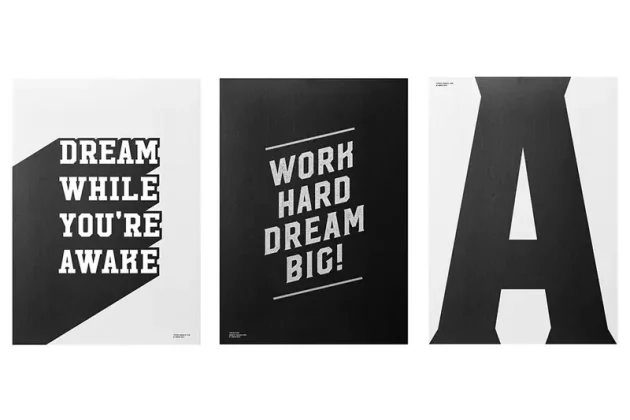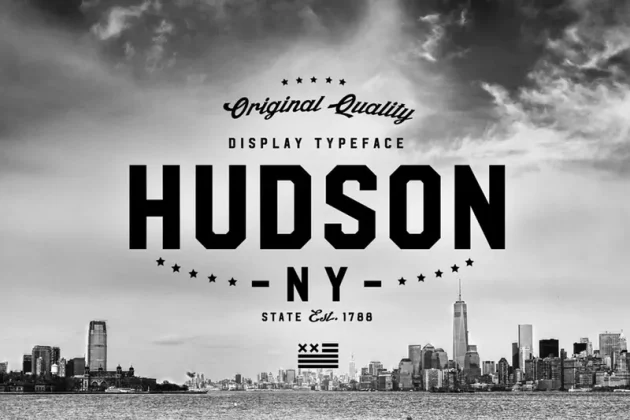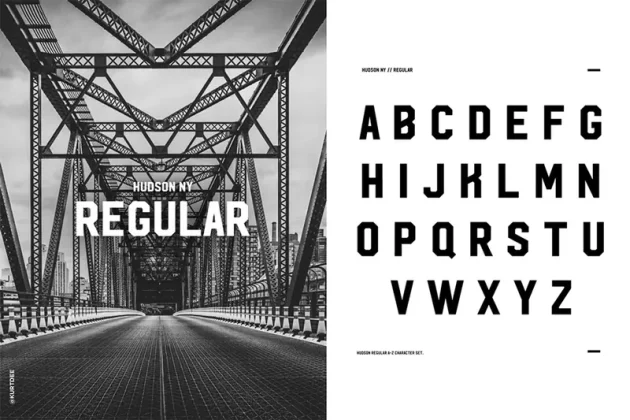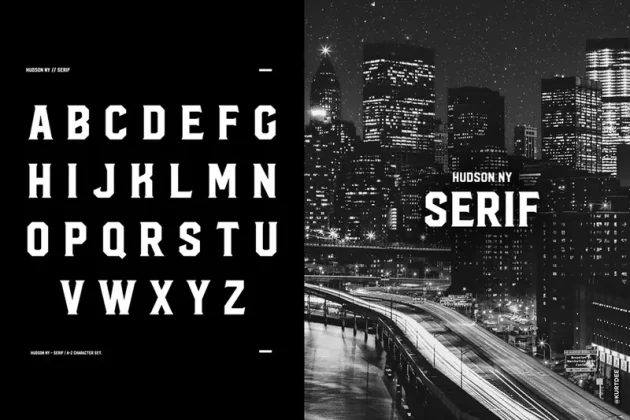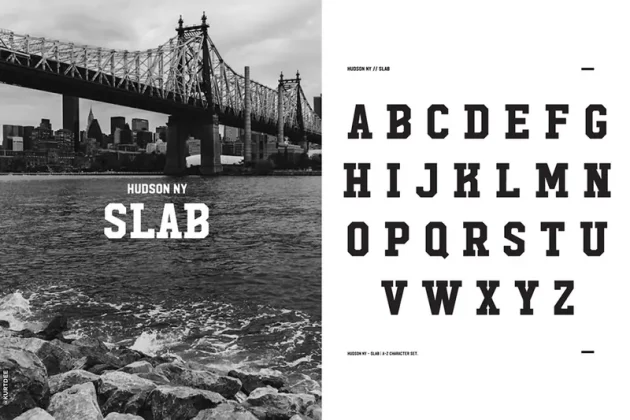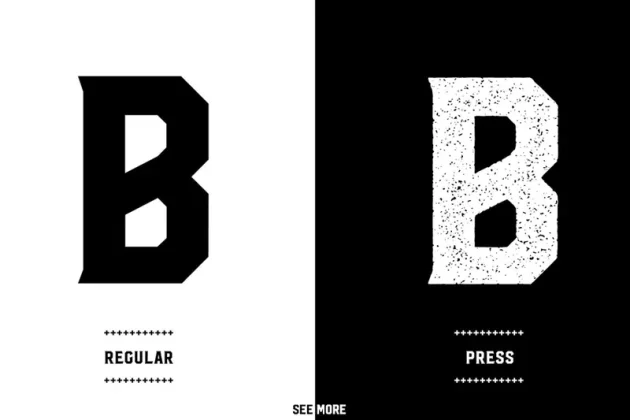
HUDSON NY FAMILY Font
About HUDSON NY FAMILY Font
Hudson NY is a display font that gives you strong and bold typography with three different styles that make up the family, a regular, serif and slab serif. Hudson NY is an adaptation and progression of Roper Font, and like Roper font it comes in regular and a press versions, giving the user some cool options when creating artwork. The golden thread that ties this family together is its American sports and college styling, it gives Hudson NY an authentic look but at the same time there is a modern approach to the character set.